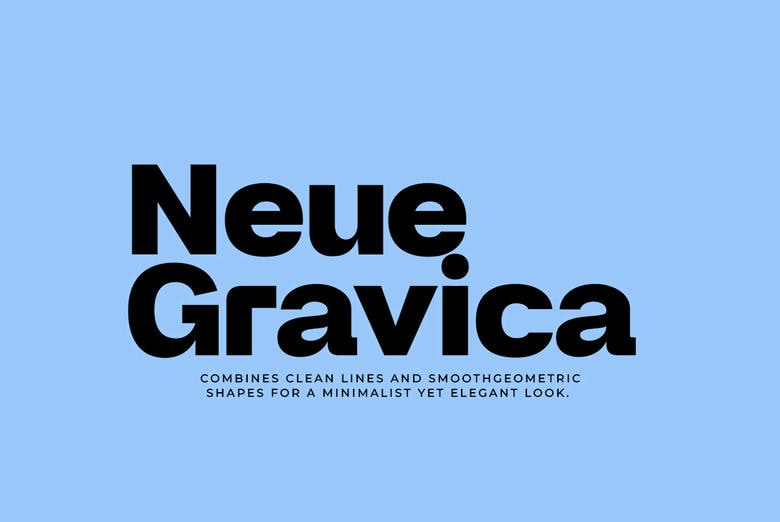
Neue Gravica Font Family
Neue gravica is a modern display type found developed with geometric forms frontal to rounded fresh clean lines. Its design makes it suitable to pop in printed and electronic media with very many imprints. In general this typeface provides flexibility in precise use where you need clean, smooth, minimally contrast and still very aesthetic design for logos, brands or web elements.
Calm and modern looking, it performs best in large formats and for titles which need to be robust, such as headlines and posters and logos.
Neue Gravica Sans Serif Font Family